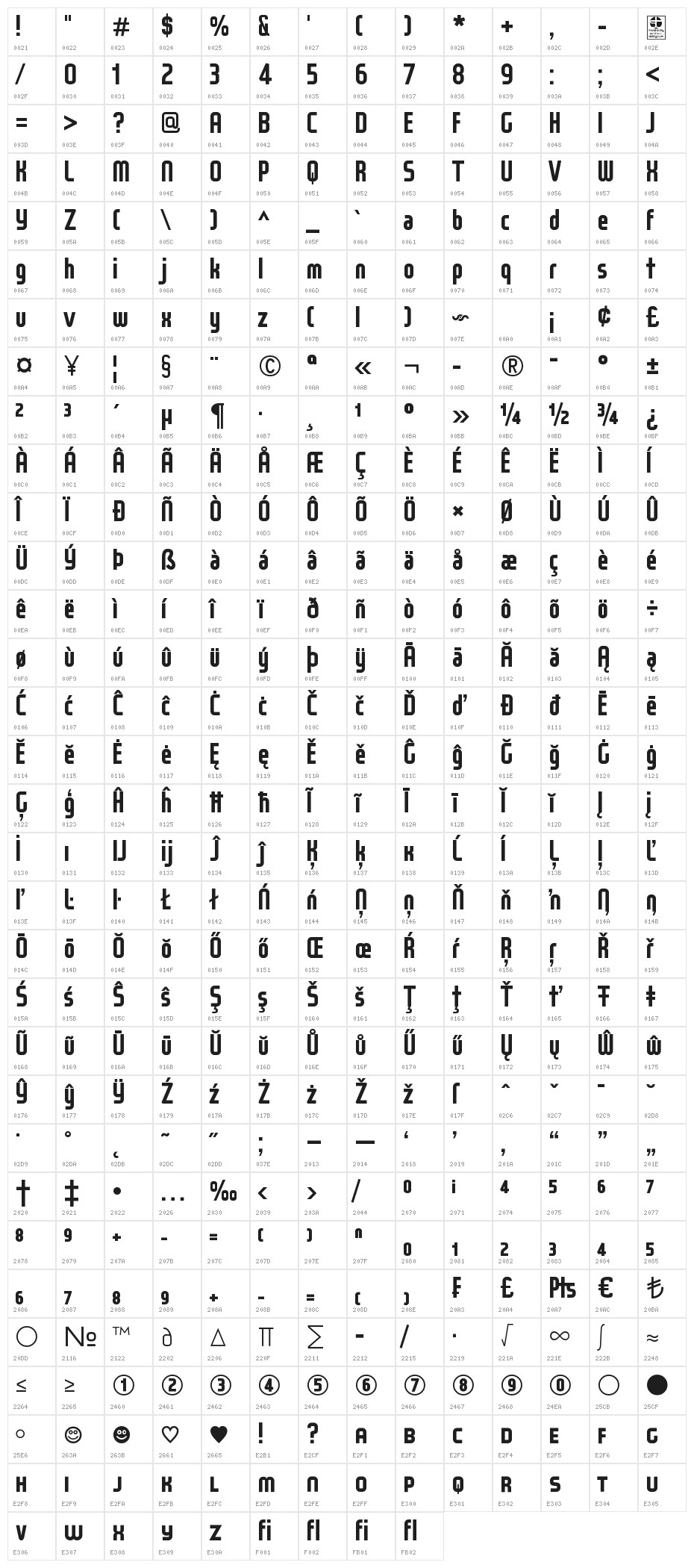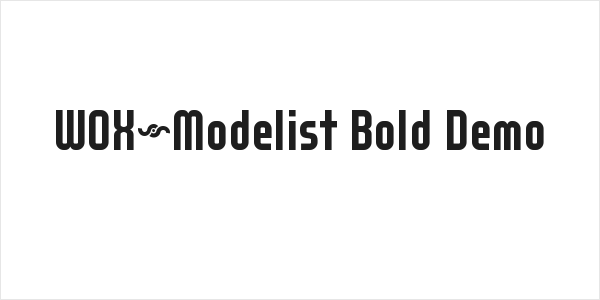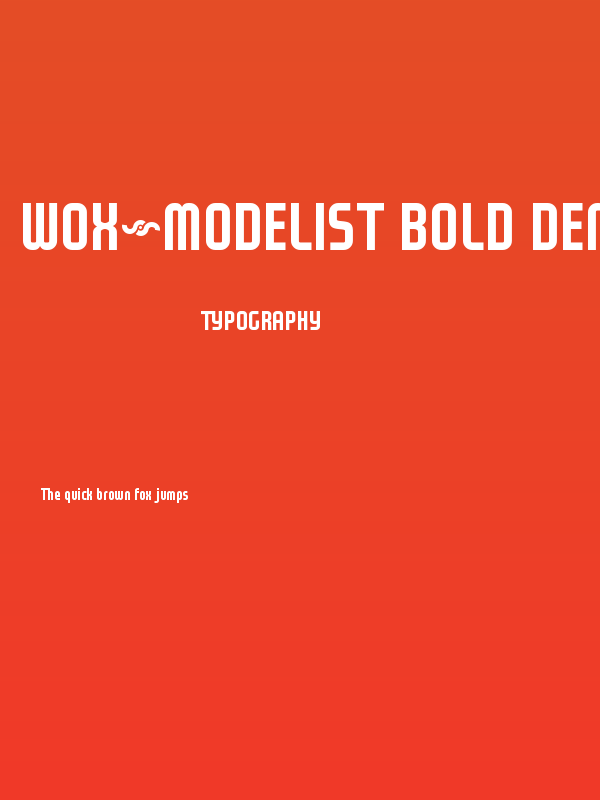
WOX~Modelist Bold Demo Font
WOX~Modelist Bold Demo Description
This font features a bold and modern design with a geometric structure. The characters are uniformly thick, providing a strong and impactful appearance. The uppercase and lowercase letters maintain a consistent style, with rounded edges that soften the overall look. The numerals are clear and legible, matching the boldness of the alphabetic characters. Special characters are included, maintaining the same bold and structured aesthetic. This font is suitable for making a statement in any design project, offering a contemporary and assertive feel.
| Proposed Projects | Ideal for branding, headlines, posters, and any design requiring a strong, modern aesthetic. |